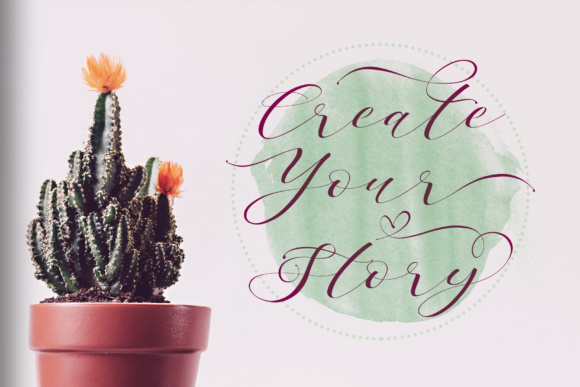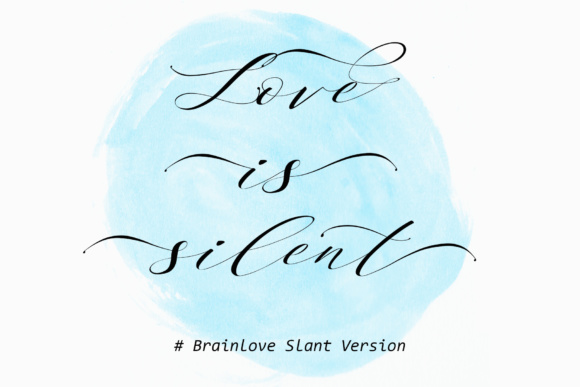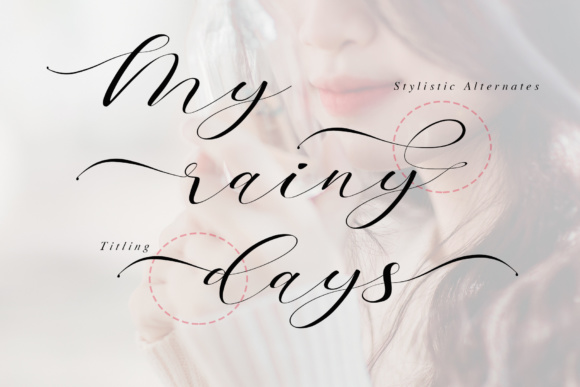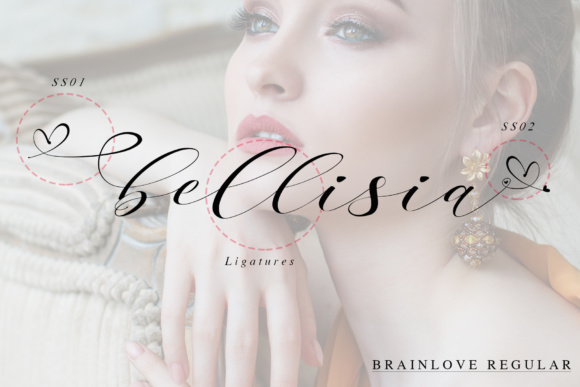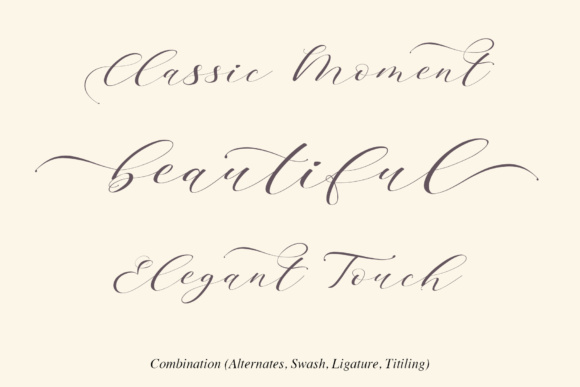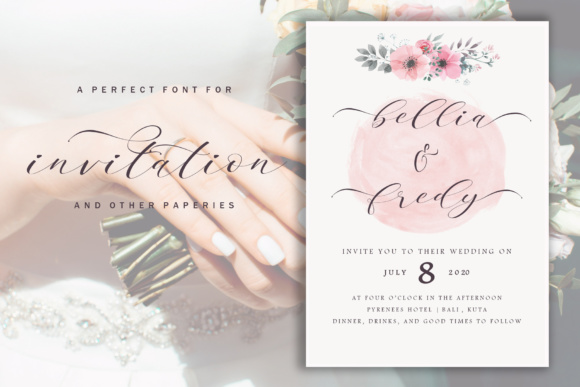
The Brainlove Script Font: A Designer’s New Best Friend
I’ll never forget the time I was working on a wedding invitation project, and my client asked for a font that was ” elegant, yet playful, and totally Instagram-worthy.” I scoured the internet, tried out a gazillion fonts, but nothing seemed quite right. That was until I stumbled upon the Brainlove Script Font. 💕
This beautiful script font has been a game-changer for me, and I’m excited to share its awesomeness with you. So, let’s dive in and explore what makes Brainlove so special!
- ✅ The varying baseline gives it a lovely, organic feel that’s perfect for creating headings, signatures, and logos.
- ✅ The smooth lines and classic touch make it elegant and sophisticated, ideal for wedding invitations, letterheads, and signage.
- ✅ It’s incredibly versatile and can be used for a wide range of projects, from t-shirts to posters and badges.
- ⚠️ Some users might find the font a bit too ornate for certain projects, like body text or captions.
- ⚠️ It may not be the best choice for very small font sizes, as some details might get lost.
Brainlove Script Font comes with a range of OpenType features and glyphs that can elevate your designs. Here are a few tips on how to access them:
The Story Behind Brainlove
Brainlove Script Font was designed with love and care by a talented typographer who wanted to create a font that would inspire creativity and beauty. The designer drew inspiration from classic calligraphy and modern script fonts, blending them into a unique and stylish font that’s perfect for a wide range of projects.
| Is Brainlove suitable for body text? | While Brainlove is stunning as a display font, it might not be the best choice for body text due to its ornate nature. Consider using a simpler font for longer blocks of text. |